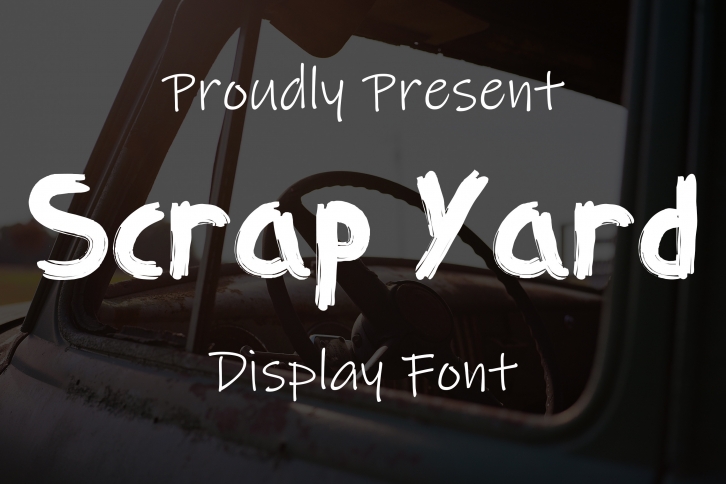
Scrap Yard is a cool, brushed and friendly display font. Whether it is employed to school related designs or leisure activities, this font will be a neat asset to your fonts’ library, as it has the potential to enhance any creation.